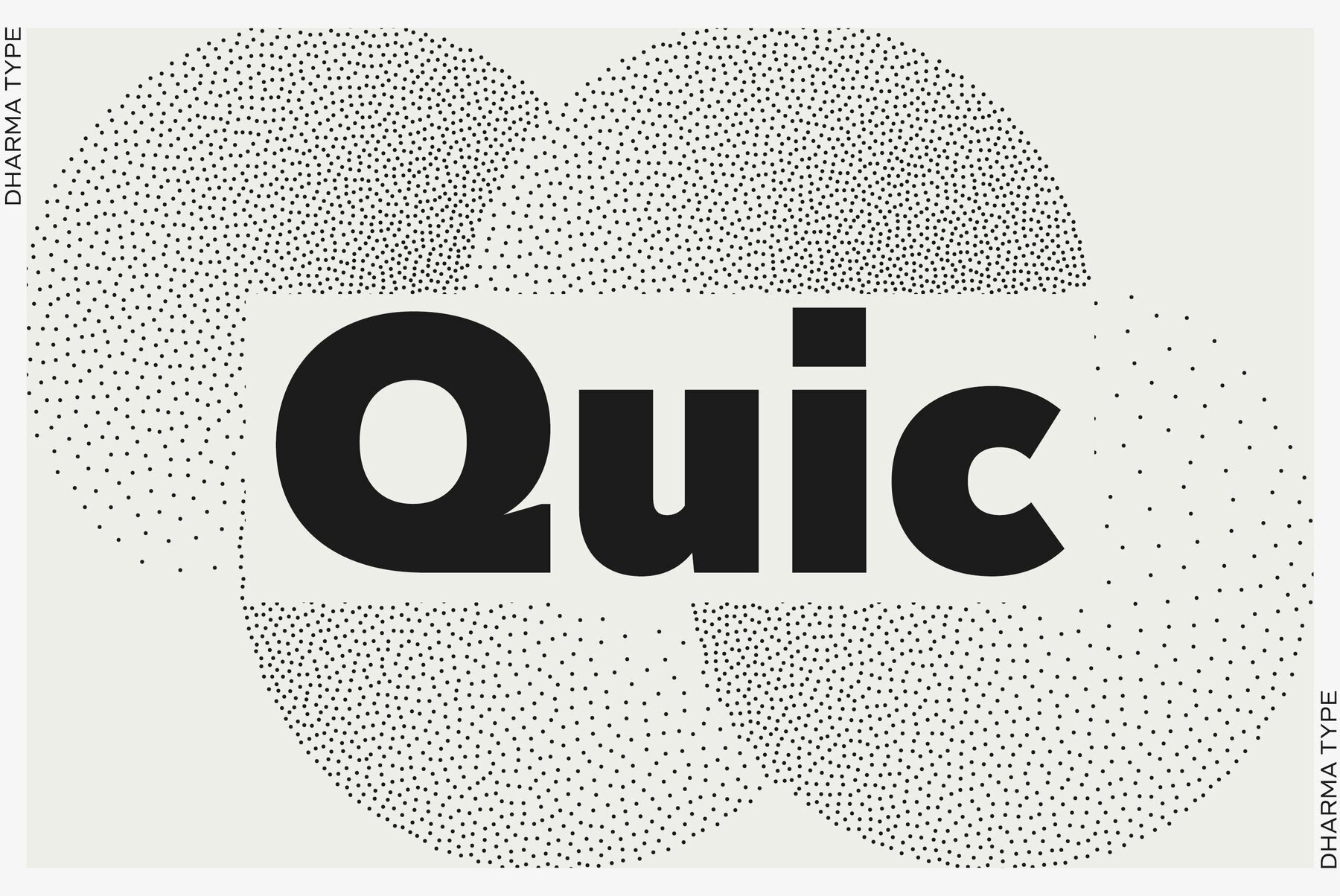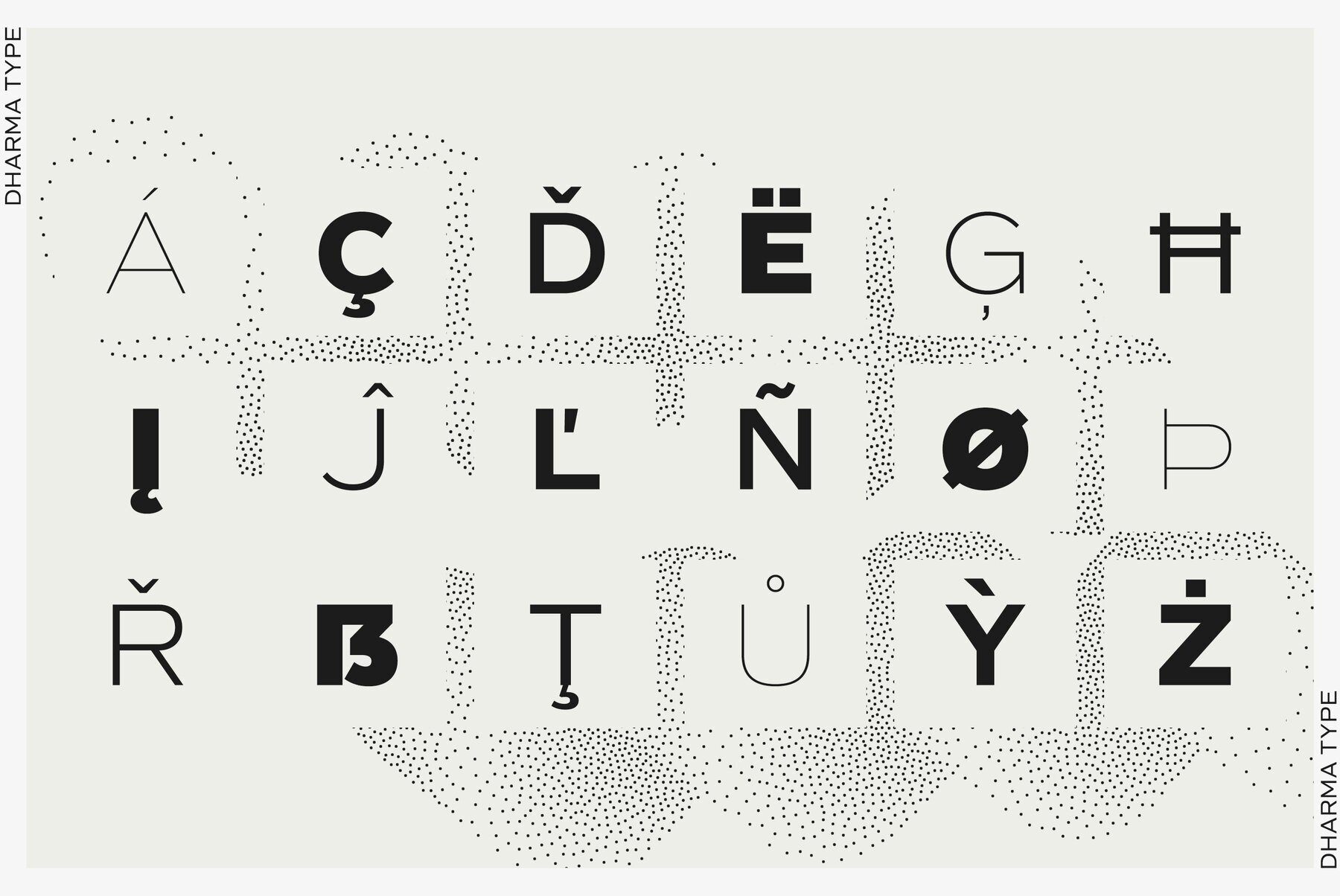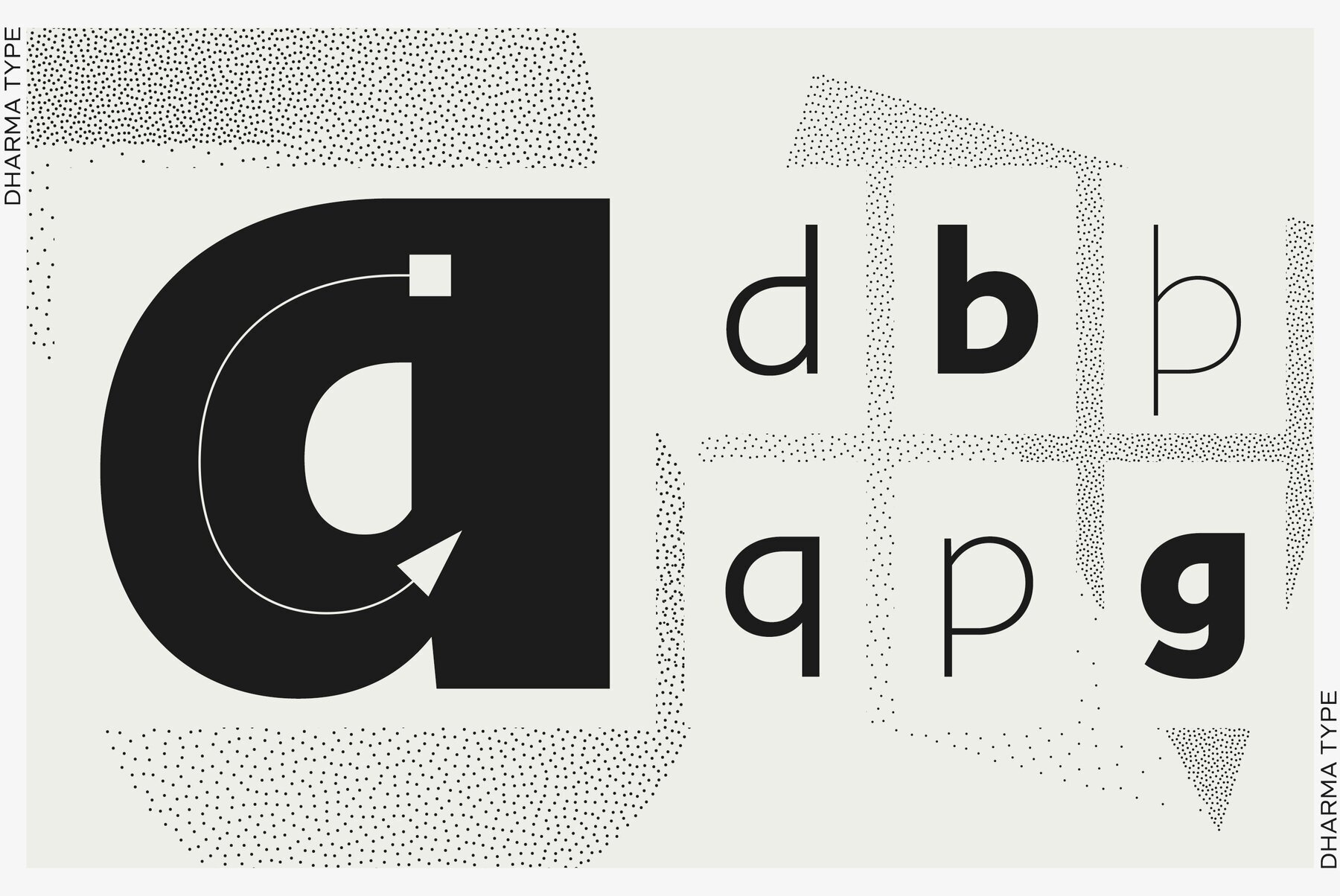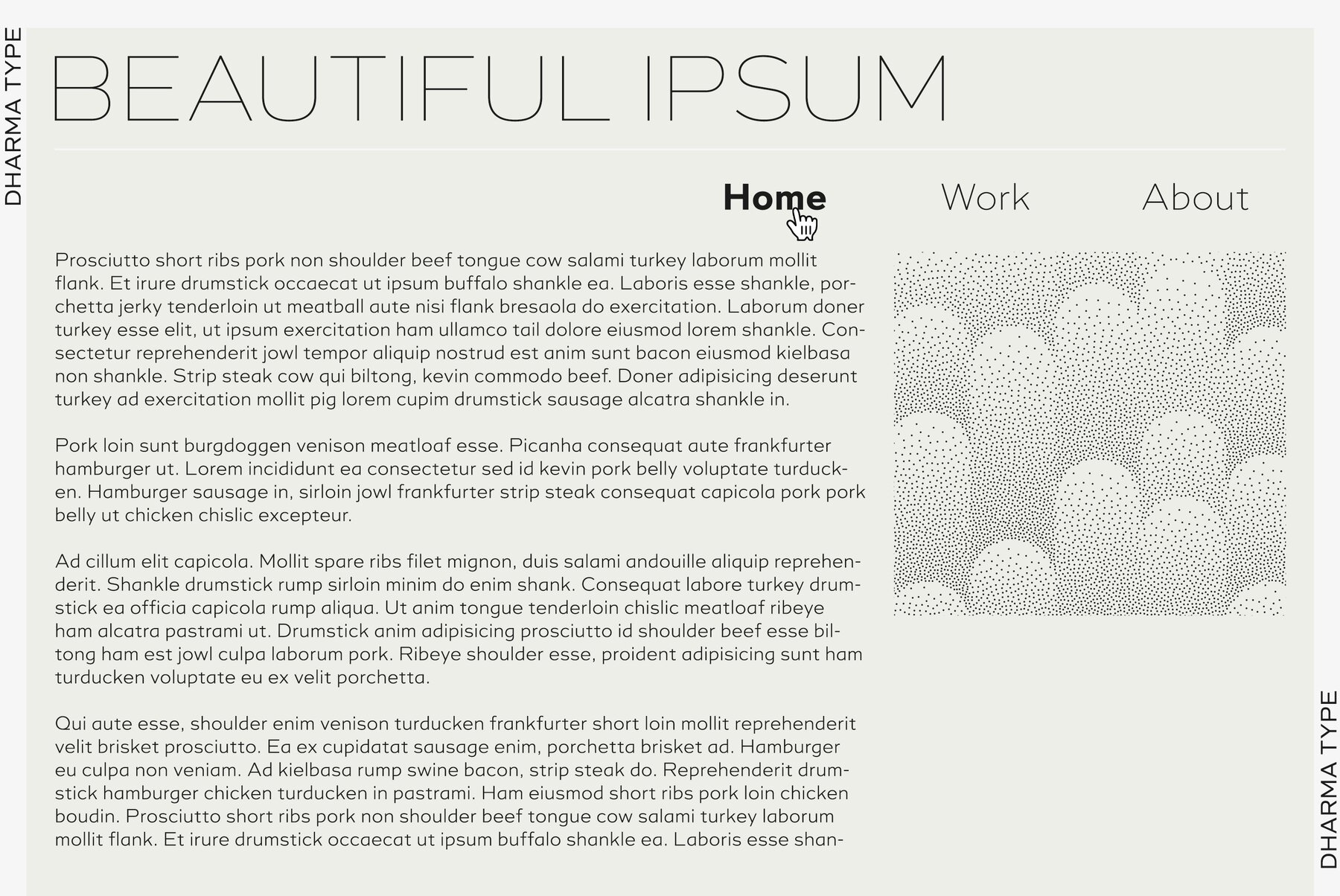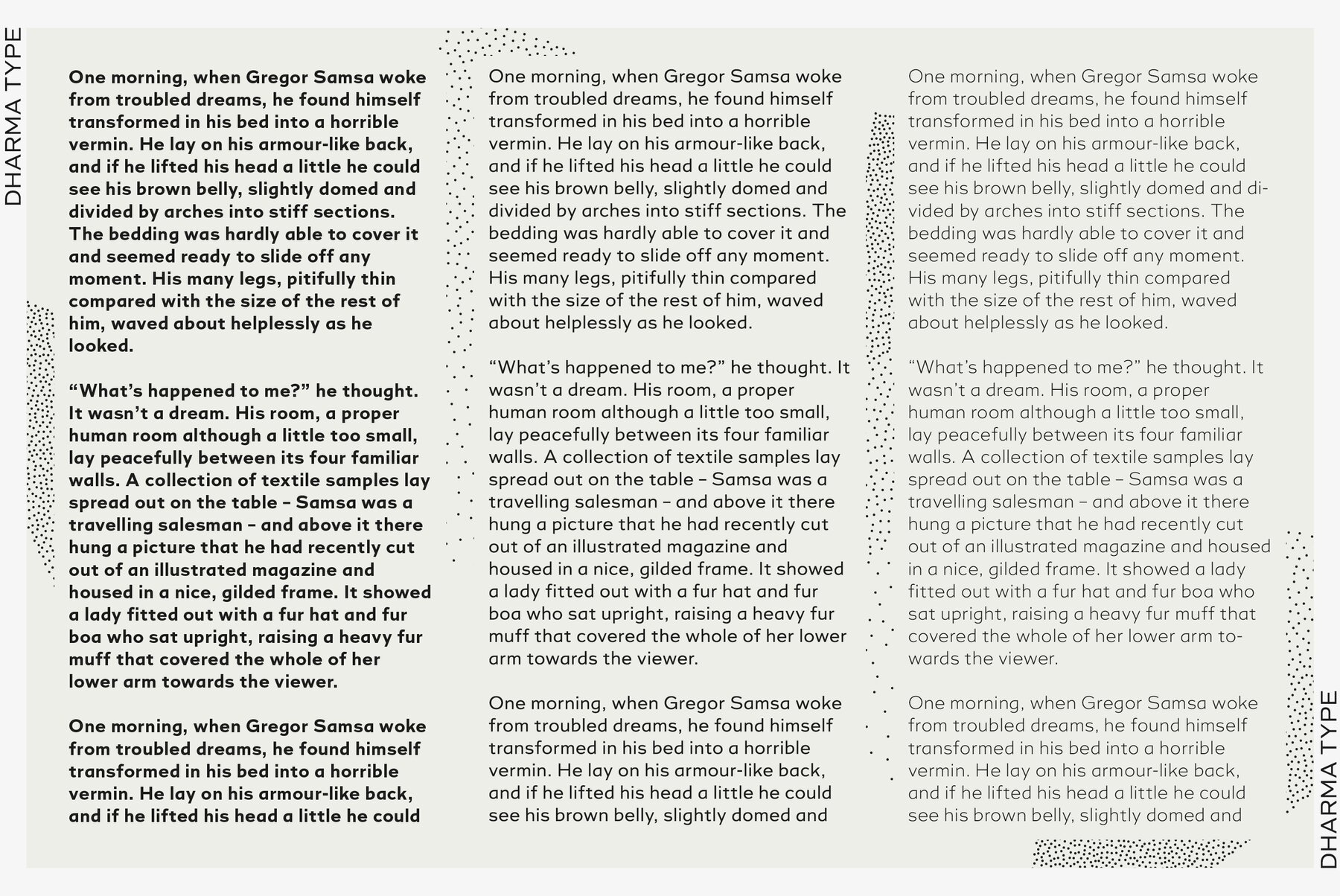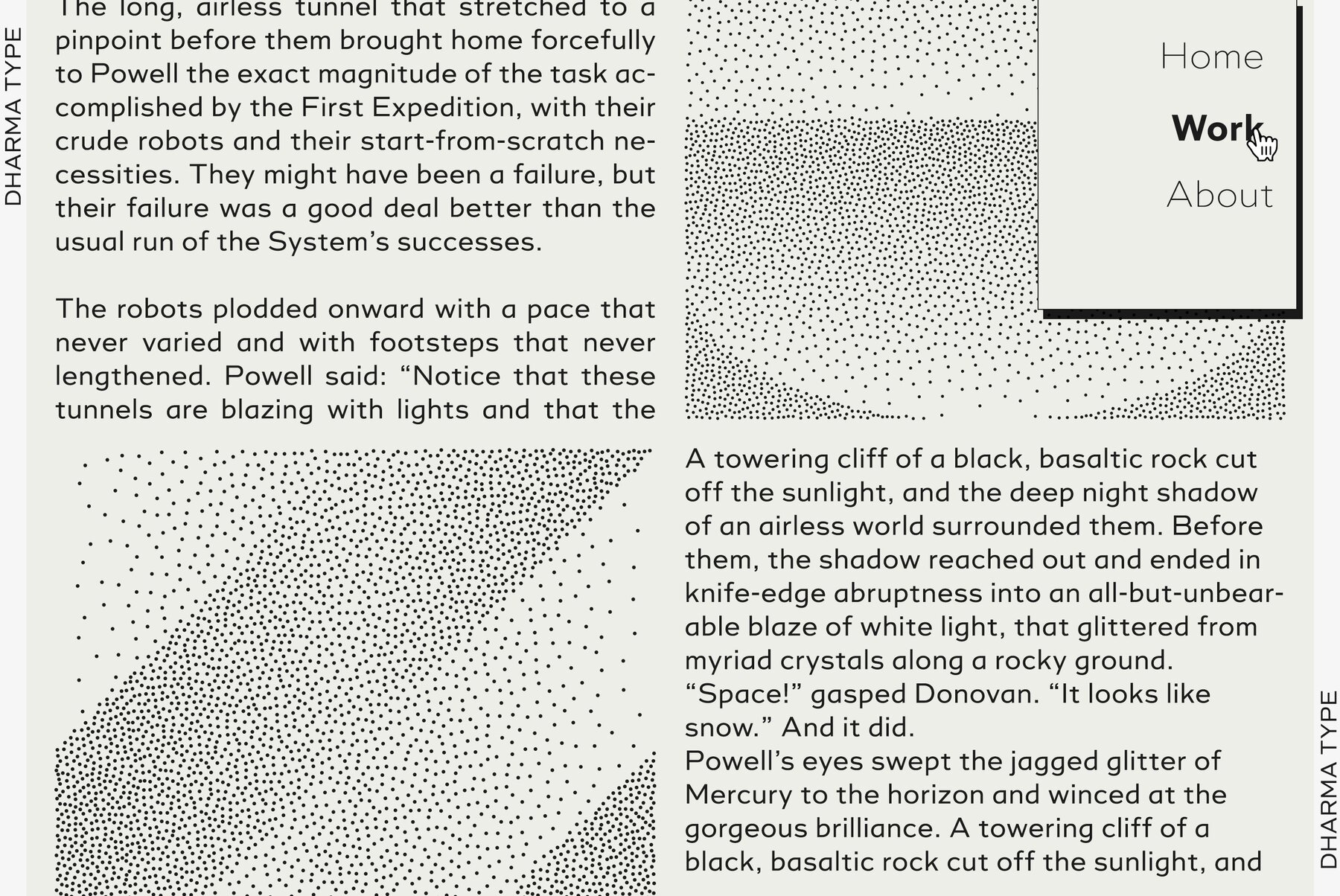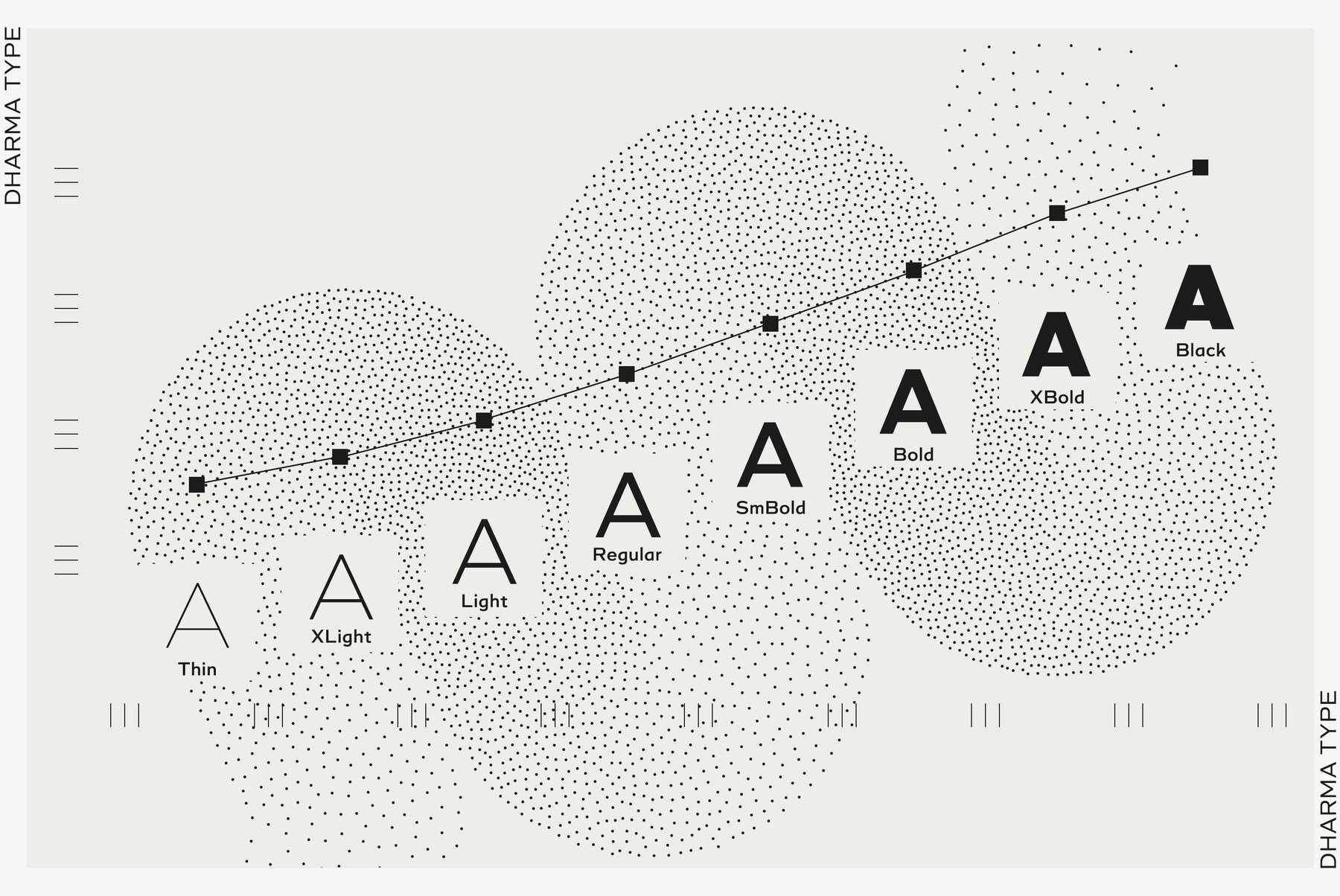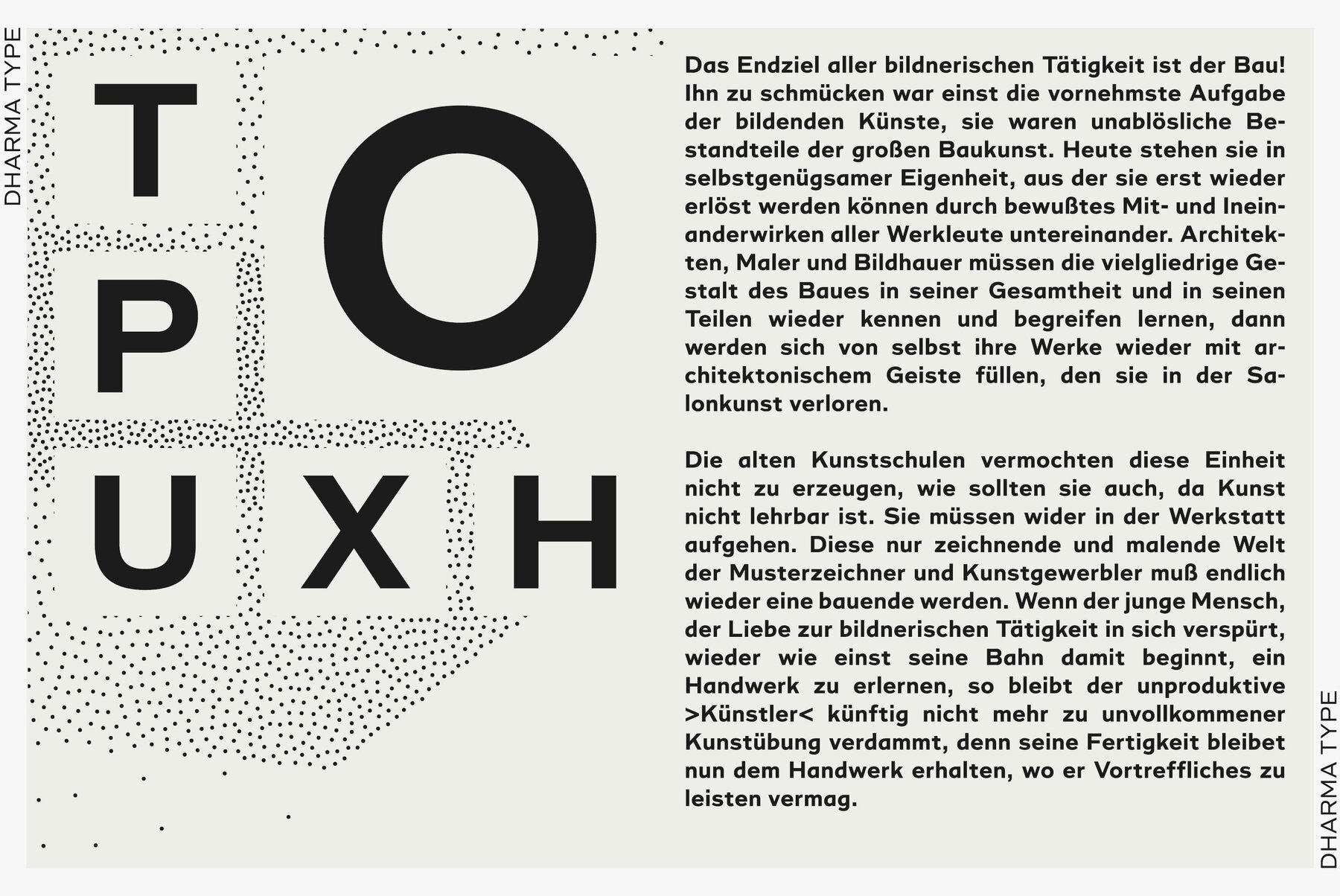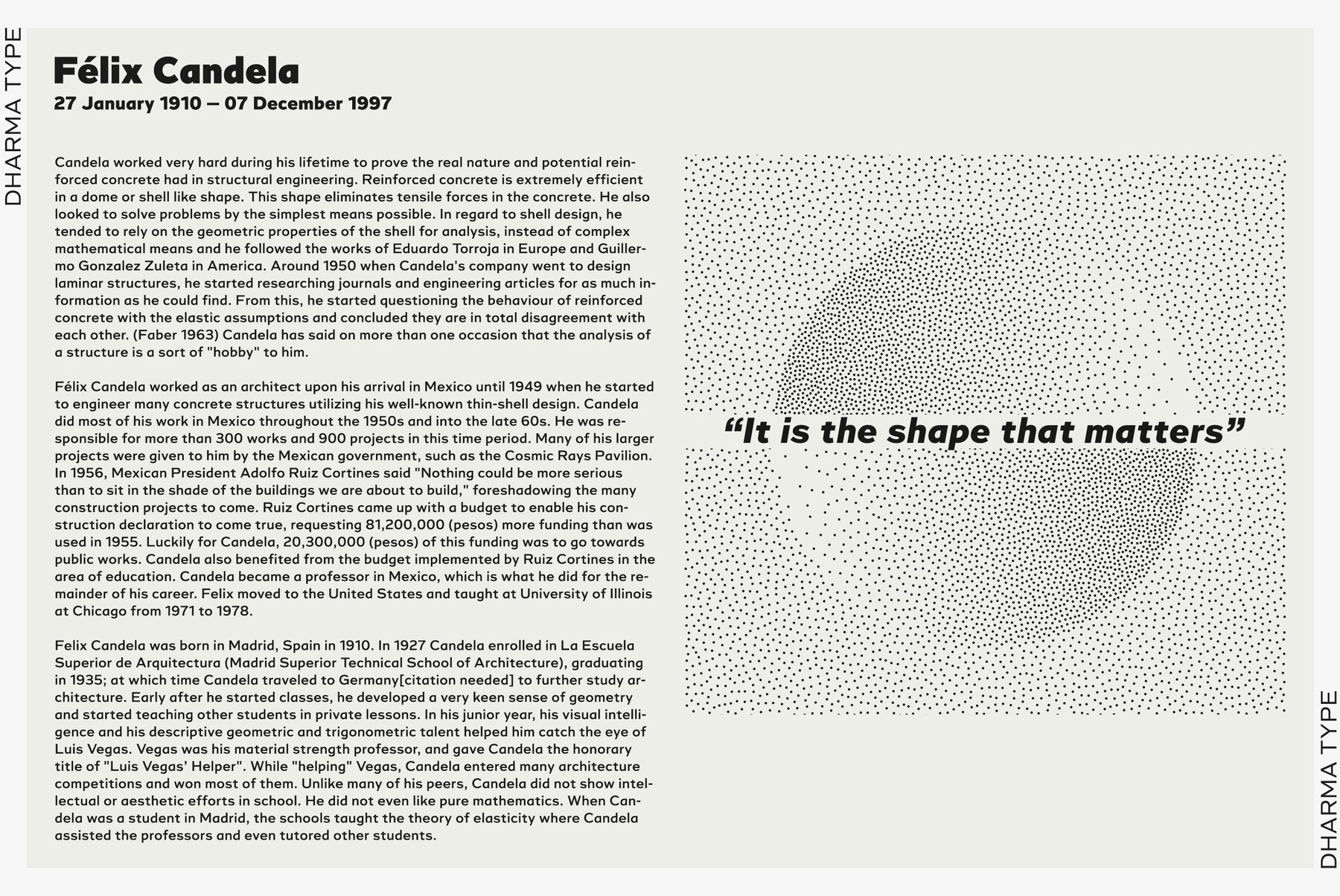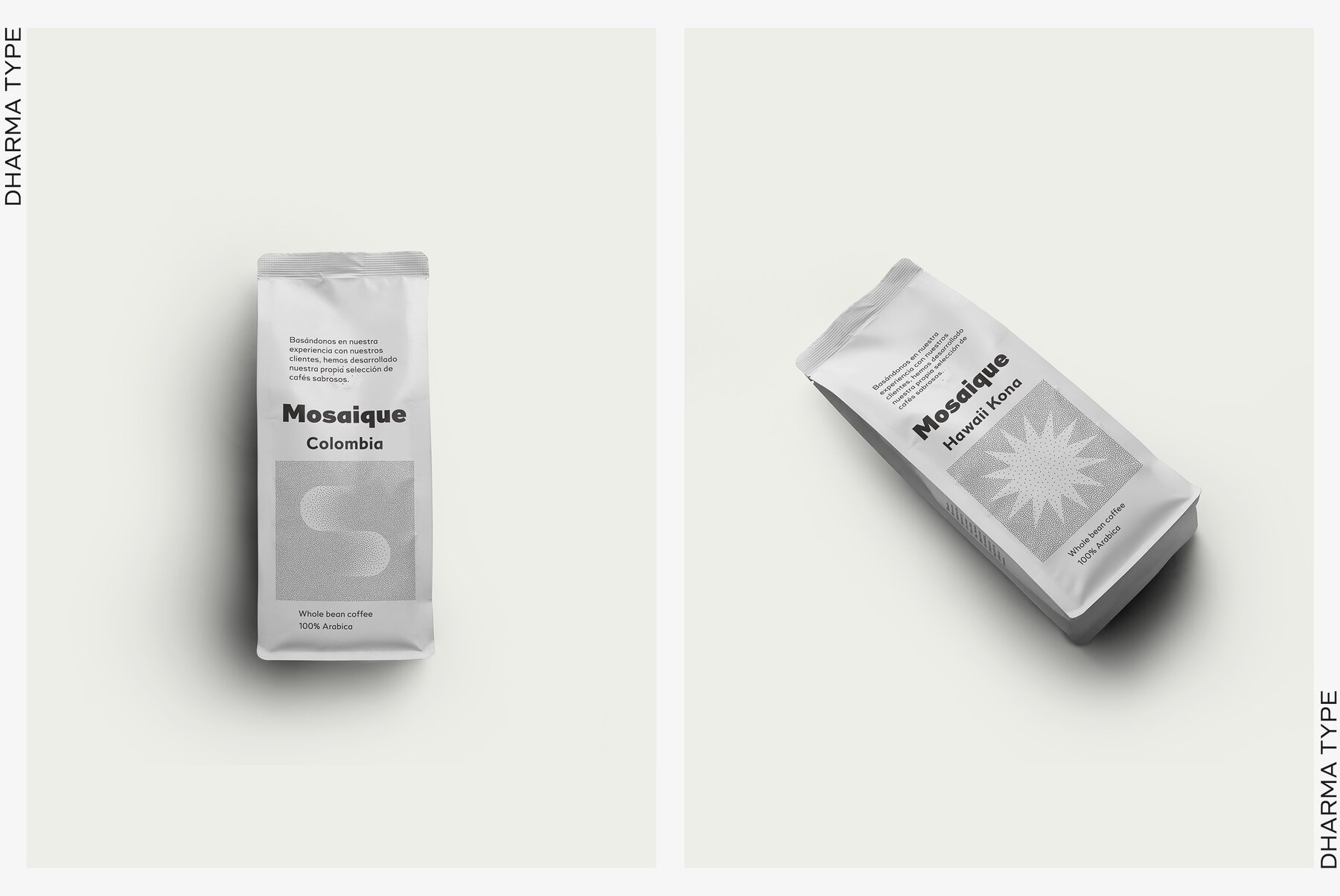
Quic Font
At the heart of this typeface lies a foundation of simple geometric shapes. Yet, it stands apart through the unique treatment of characters like 'a', 'b', and 'g', inspired by the swift, fluid strokes often found in cursive handwriting and expressive brush techniques. This creative approach imbues the typeface with a lightness and precision, as well as a subtle touch of sophistication. Since the early 2000s, typefaces with similar qualities have occasionally surfaced. However, few match the level of refinement and devoted execution of a unified design vision seen in this collection. Features:Distinctive Typeface: Geometric Forms with a Cursive Flair
In the early 2000's, Ryoichi Tsunekawa was fascinated by the relations between modernist design and Bauhaus style while studying architecture at Nagoya University. He eventually changed his focus to type-design, establishing an extensive font collection that is now available on YouWorkForThem.The desig...